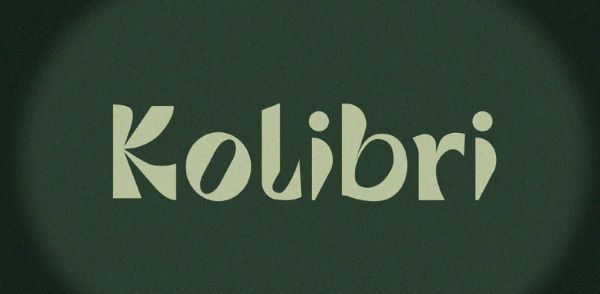
Kolibri Font
Kolibri font by Réka Kiss is a free display sans-serif font with a crisp, purposeful character that makes it immediately useful for headlines, special announcements, branding, and editorial design. Its clean letterforms carry a quiet confidence — neither shouting for attention nor disappearing into a layout — giving designers a reliable tool that holds authority without aggression. Named after the Hungarian word for hummingbird, Kolibri manages the same balance the creature does: small, precise, and distinctly elegant in motion. Available free for personal use.